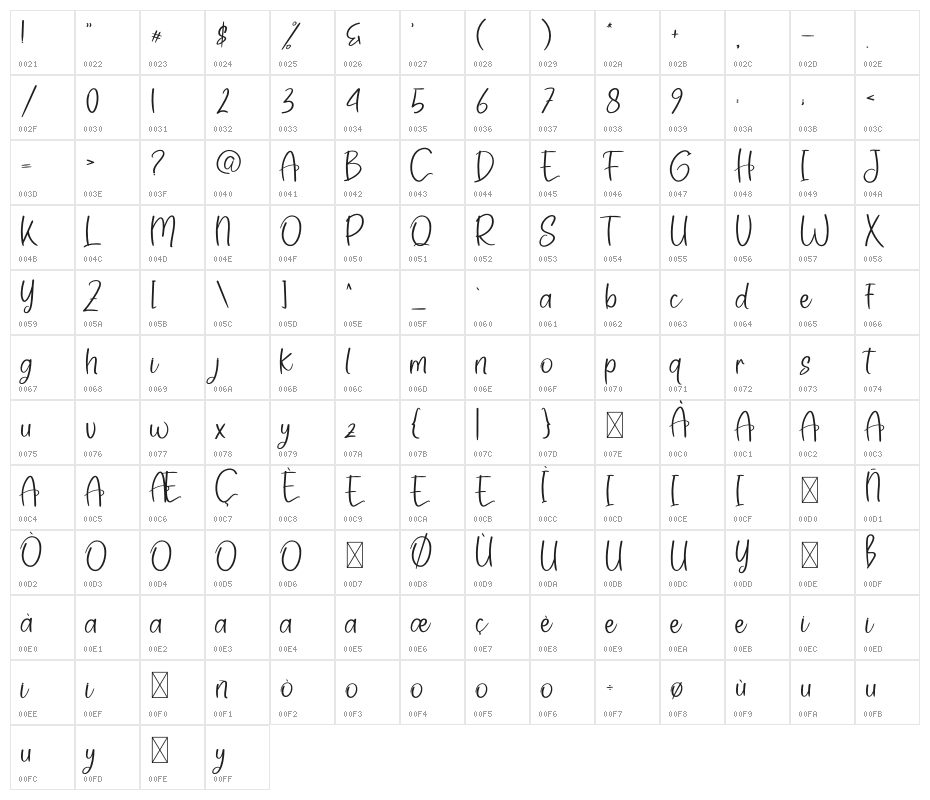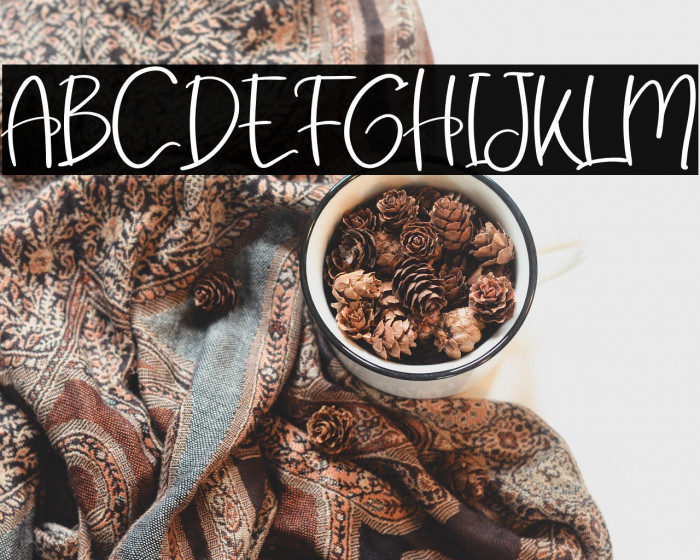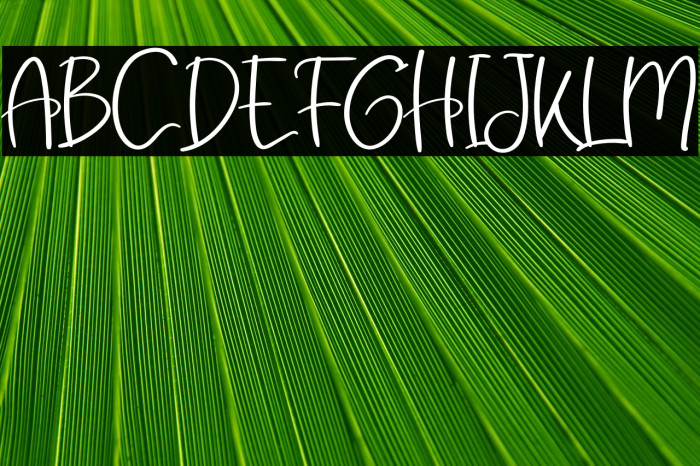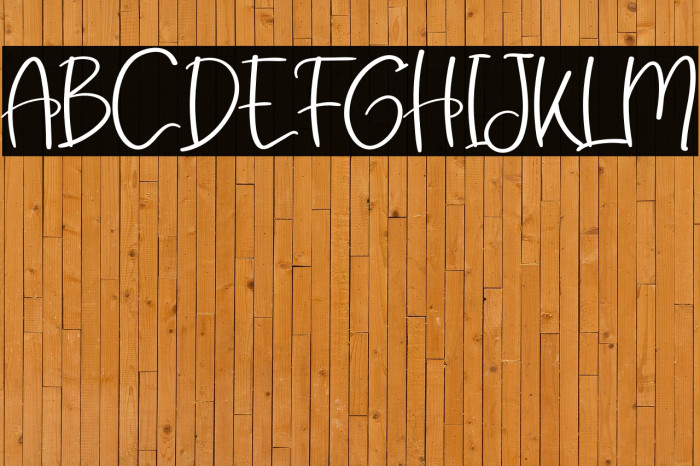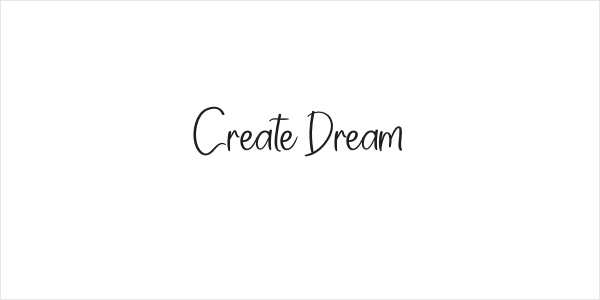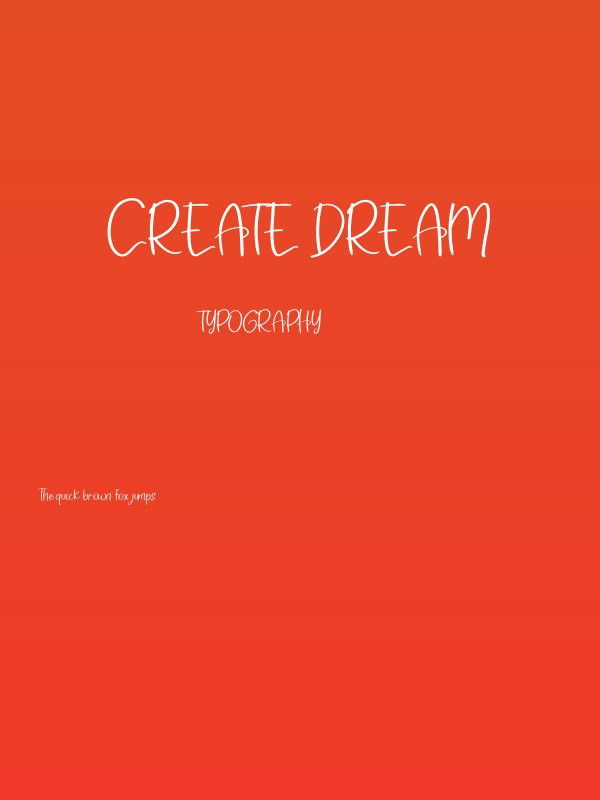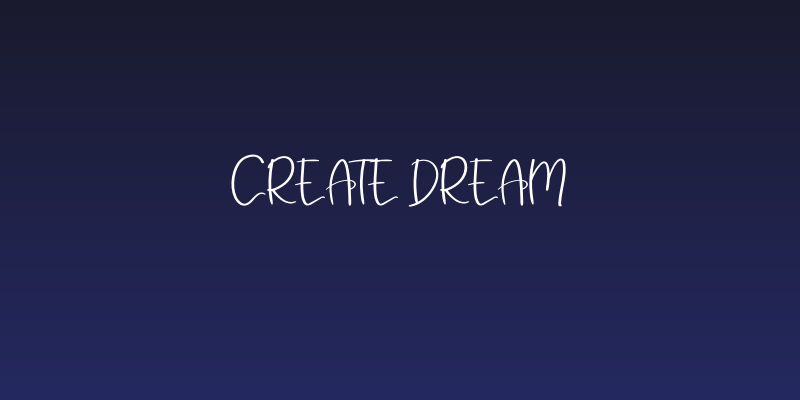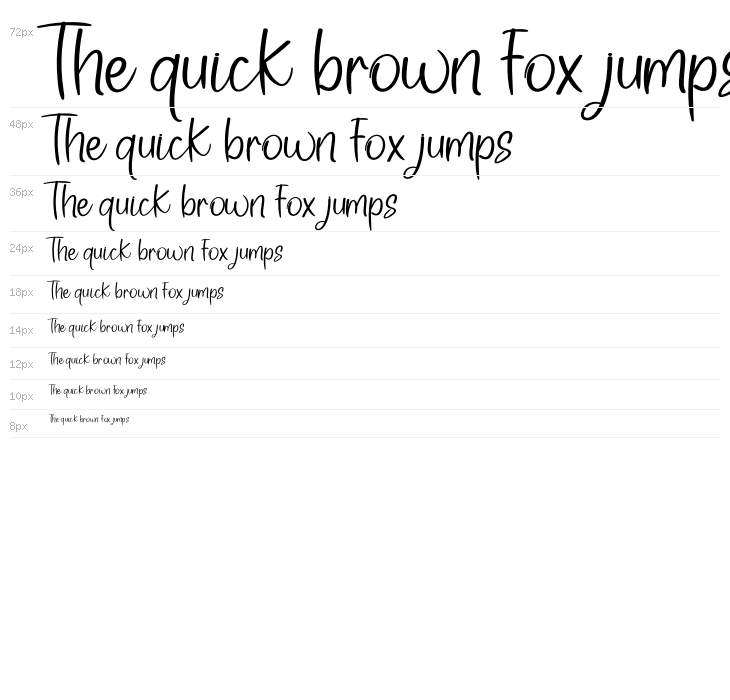
Create Dream Font
Create Dream Description
This font features a playful and whimsical handwritten style, characterized by its fluid and dynamic strokes. The letters have a natural, flowing appearance, with a slight slant that adds to its casual and friendly vibe. The uppercase and lowercase letters are well-balanced, maintaining a consistent rhythm throughout. The numerals and special characters complement the overall style, ensuring versatility in various design contexts. The font's organic feel makes it suitable for projects that require a personal touch, such as invitations, greeting cards, and creative branding.
| Proposed Projects | Ideal for invitations, greeting cards, creative branding, and personal projects. |